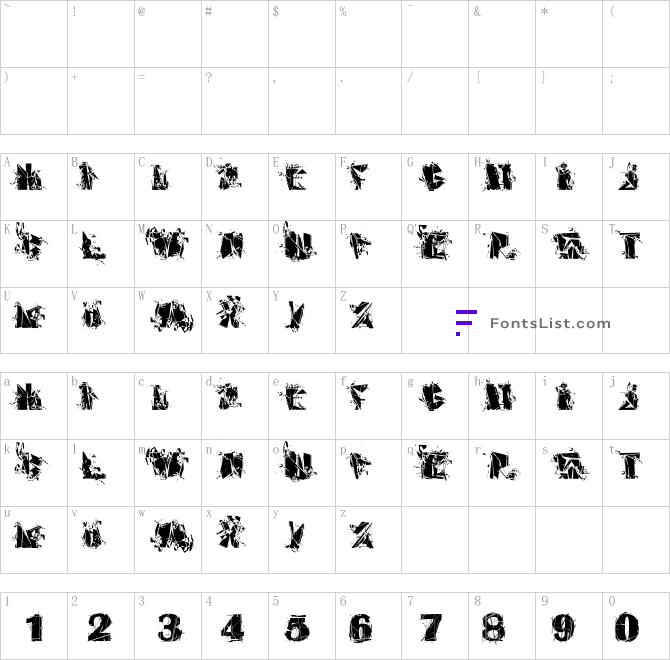
- Font Name:Abstract Rua
Abstract-Rua.ttf is a very beautiful artistic font, Abstract-Rua.ttf is widely used in the design and printing of various books and pictures,Abstract-Rua.ttf has a strong visual impact,Abstract-Rua.ttf is a commonly used font in newspapers, magazines and books, and is used in posters, e-commerce Poster design, store design, logo design, font design and other fields.Abstract-Rua.